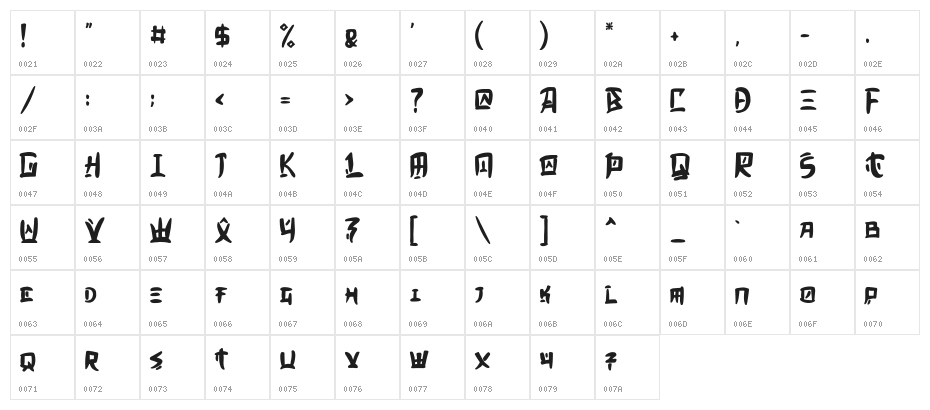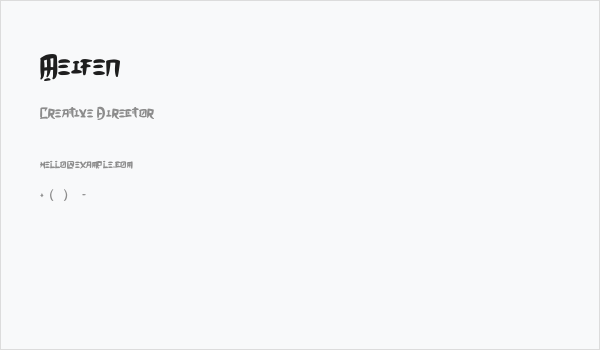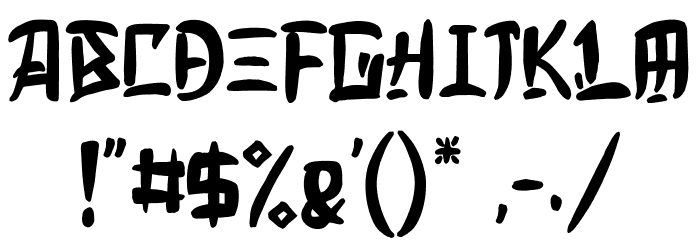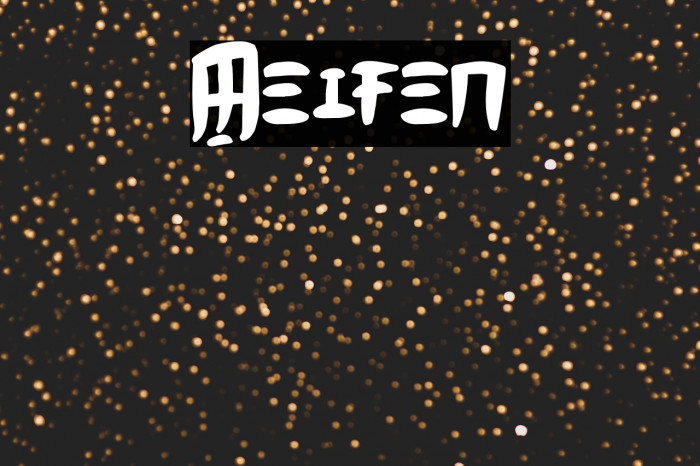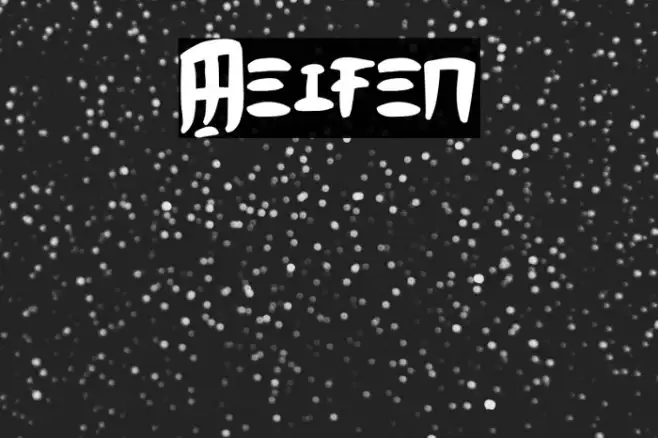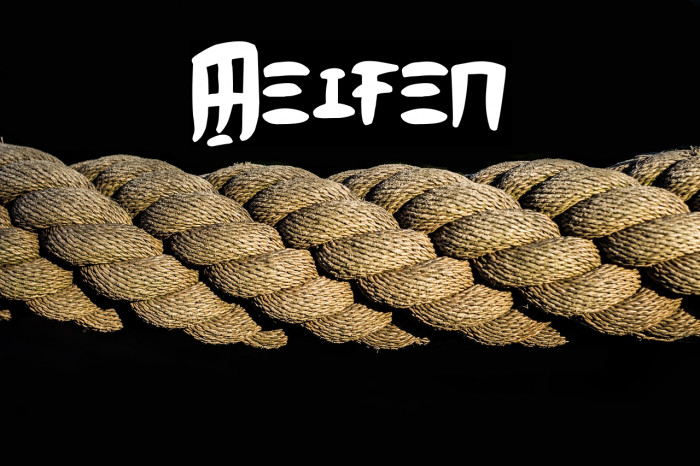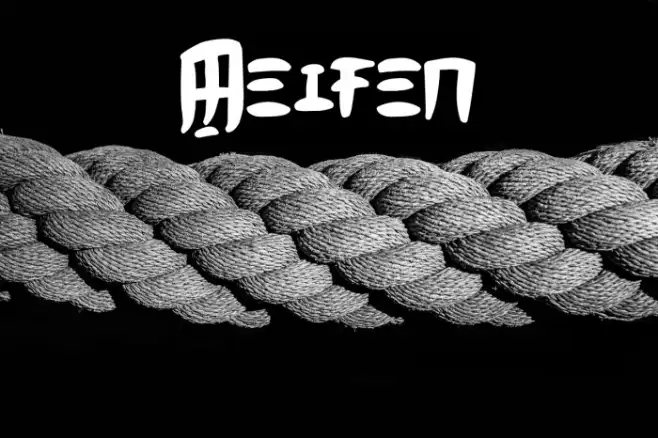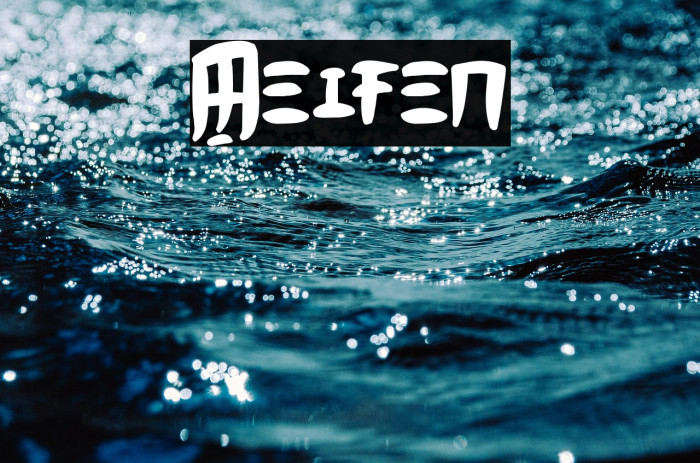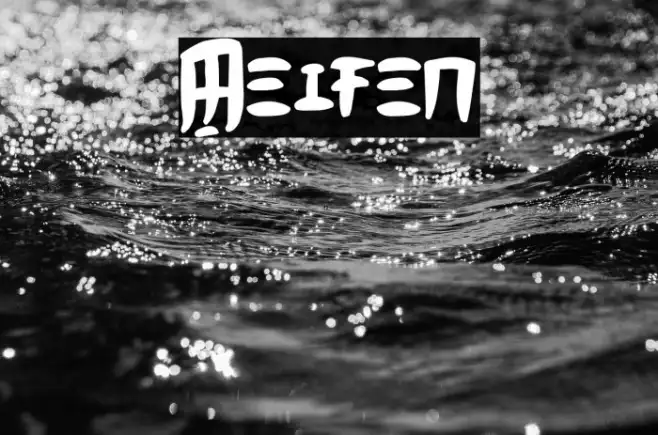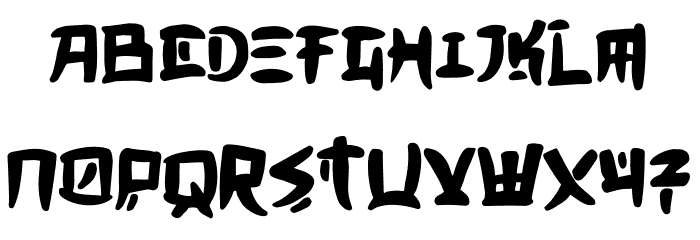
Meifen Font
Meifen Description
This font exhibits a bold and dynamic style with a strong presence. The characters are uniquely crafted with a brush-like appearance, giving them an artistic and expressive feel. The strokes are thick and uneven, adding a sense of movement and energy. The uppercase and lowercase letters maintain a consistent style, while the numerals and special characters integrate seamlessly into the overall design. This font's distinctive look makes it suitable for projects that require a bold and creative touch.